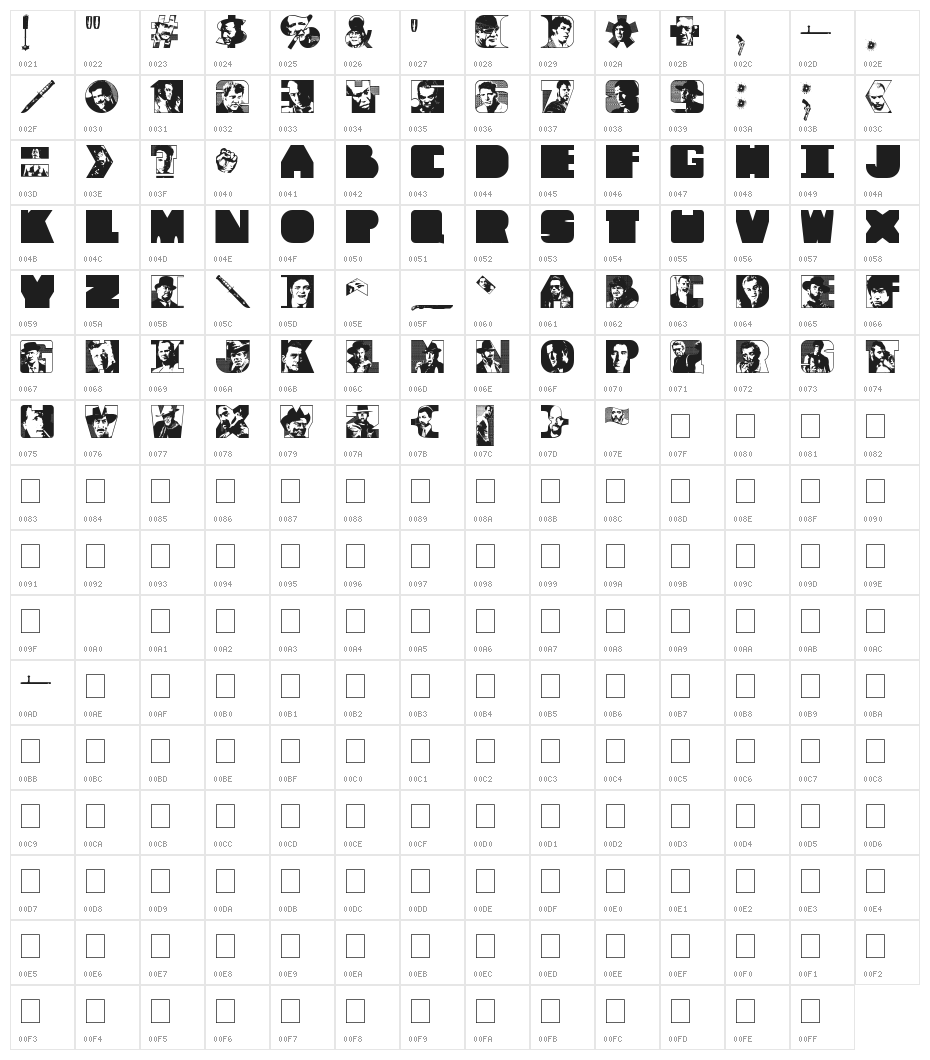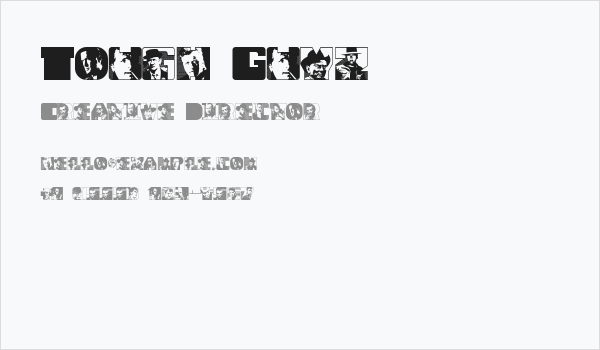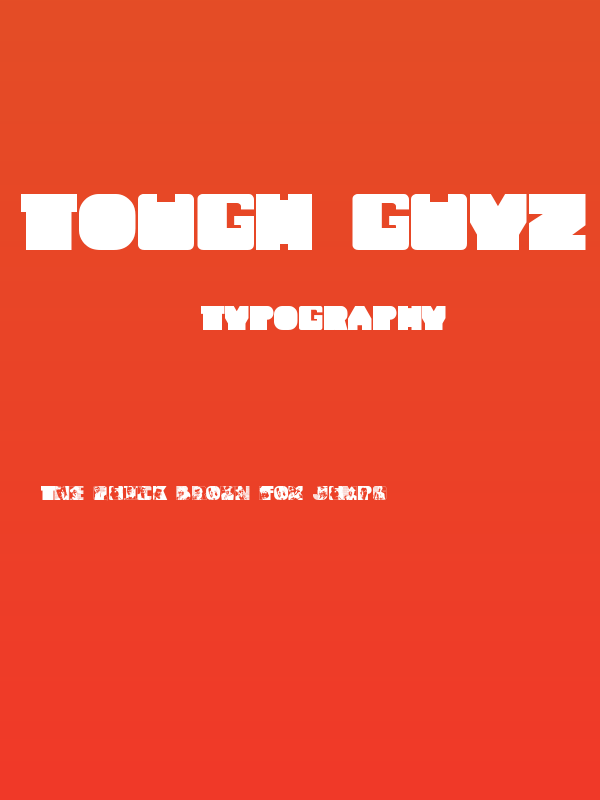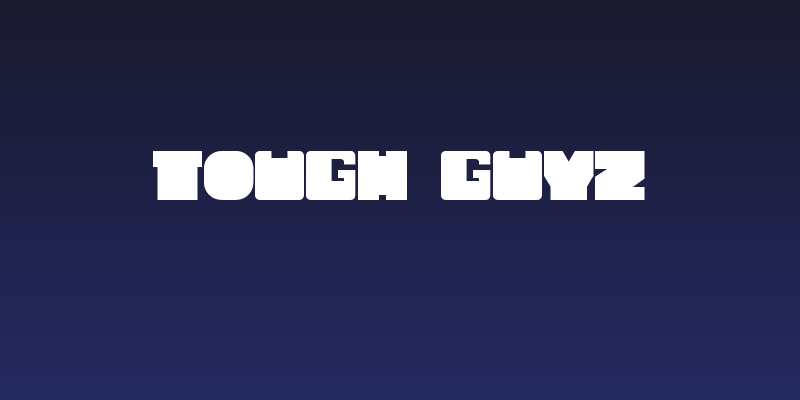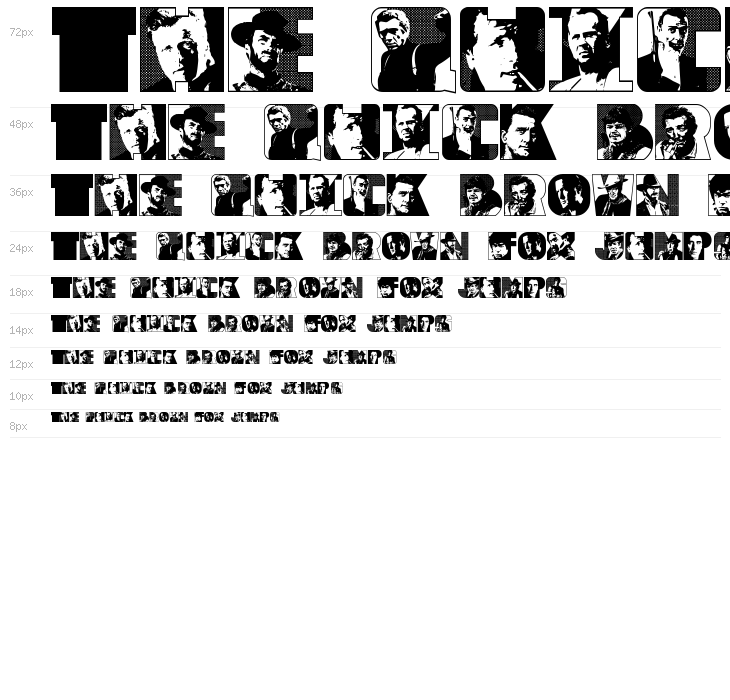
Tough Guyz Font
Tough Guyz Description
This font features a bold and impactful design with a unique twist. Each character is filled with iconic images of tough, rugged figures, giving it a distinctive and memorable appearance. The uppercase letters are particularly striking, with strong, blocky shapes that convey a sense of strength and authority. The lowercase letters maintain this boldness, ensuring consistency across the font. The numbers and special characters are equally dynamic, incorporating the same visual style. This font is perfect for projects that require a bold statement or a touch of nostalgia, as it evokes a sense of classic toughness and vintage charm.
| Proposed Projects | Ideal for posters, movie titles, branding for rugged products, or any design needing a bold, vintage touch. |